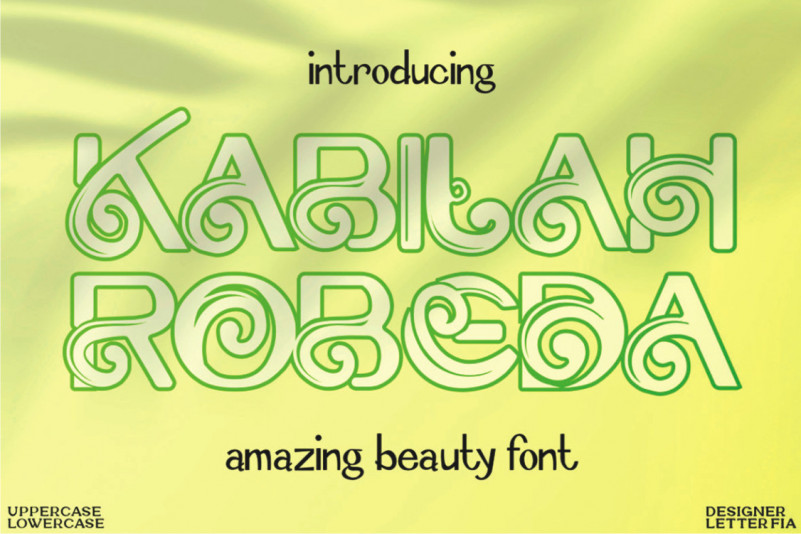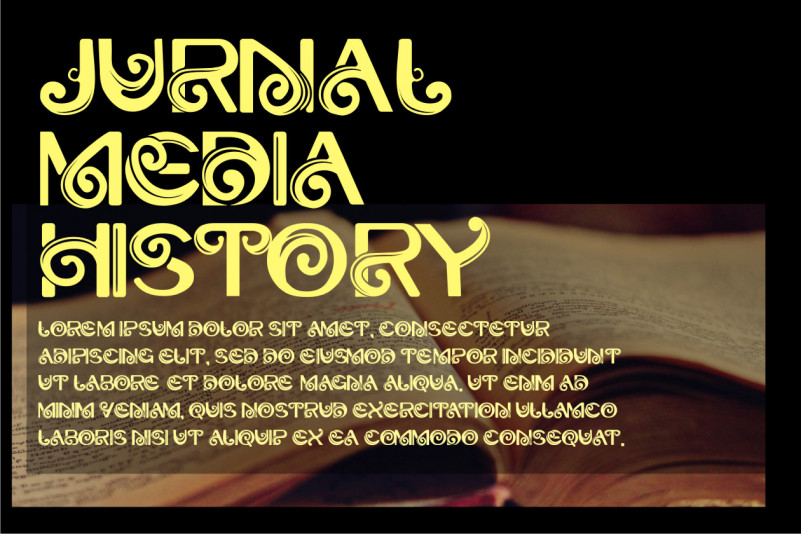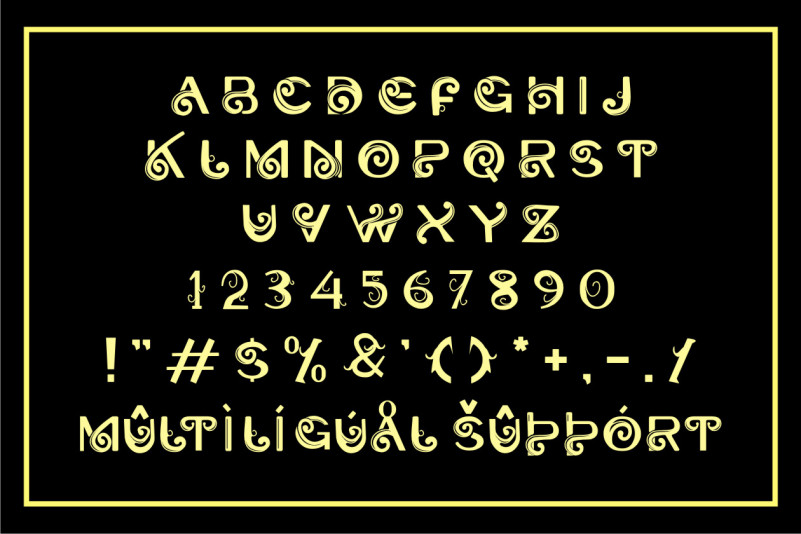
Kabilah Robeda Display Font
Kabilah Robeda is a cool, trendy and whimsical display font. No matter the topic, this font will be an incredibly asset to your fonts’ library, as it has the potential to elevate any creation.